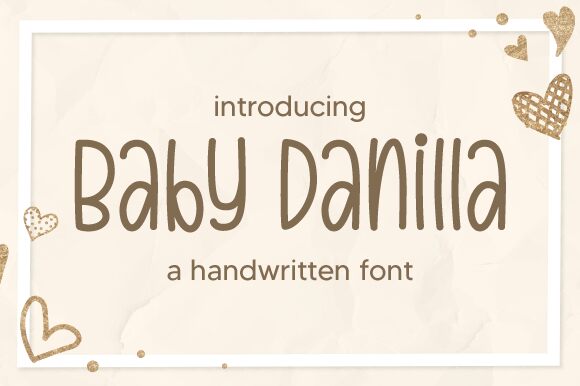
The Baby Danilla font, crafted by the talented Nirmala Creative, is a beautiful handwritten typeface that exudes elegance and sophistication. Its light weight and extra-condensed width create a unique and eye-catching look perfect for projects in need of a delicate touch. This font is ideal for wedding invitations, stationery, logos, and other designs that require a personal touch. With its charming appearance and graceful curves, the Baby Danilla font will breathe new life into any creative project. Try it out today and experience its magic firsthand!
Baby Danilla